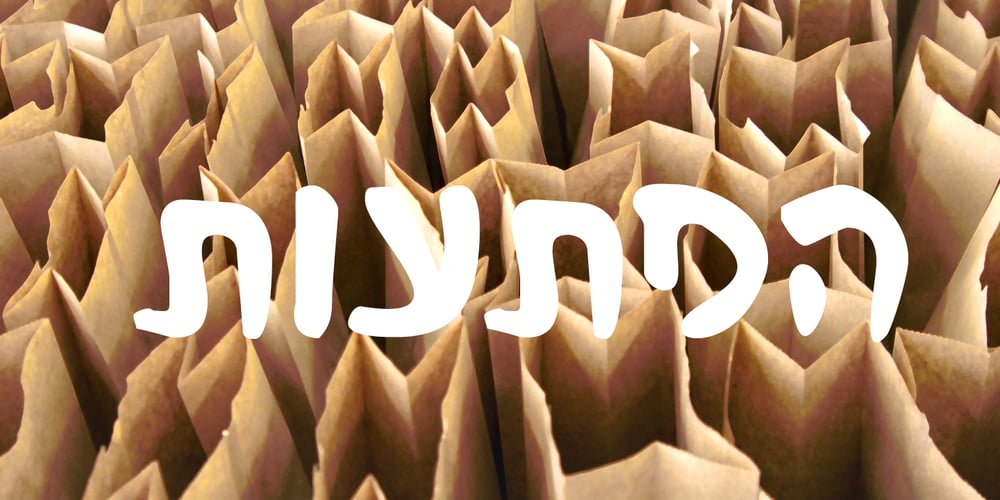
Blind Date MF Font Family was designed by Uzi Batish and published by Masterfont. Blind Date MF contains 1 styles and family package options. A practical handwriting font for all your day by day fresh and crazy design needs: headlines, signage etc.